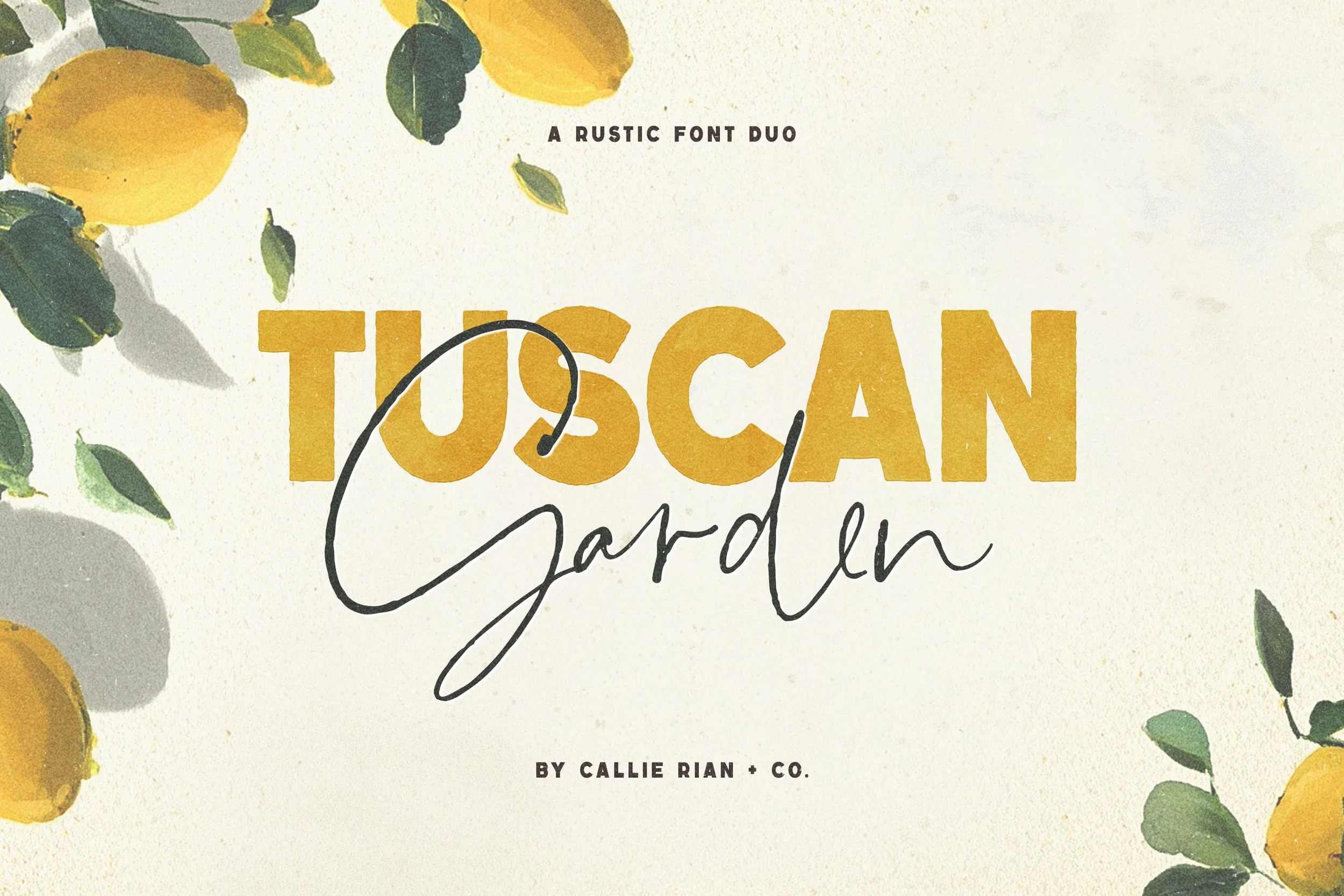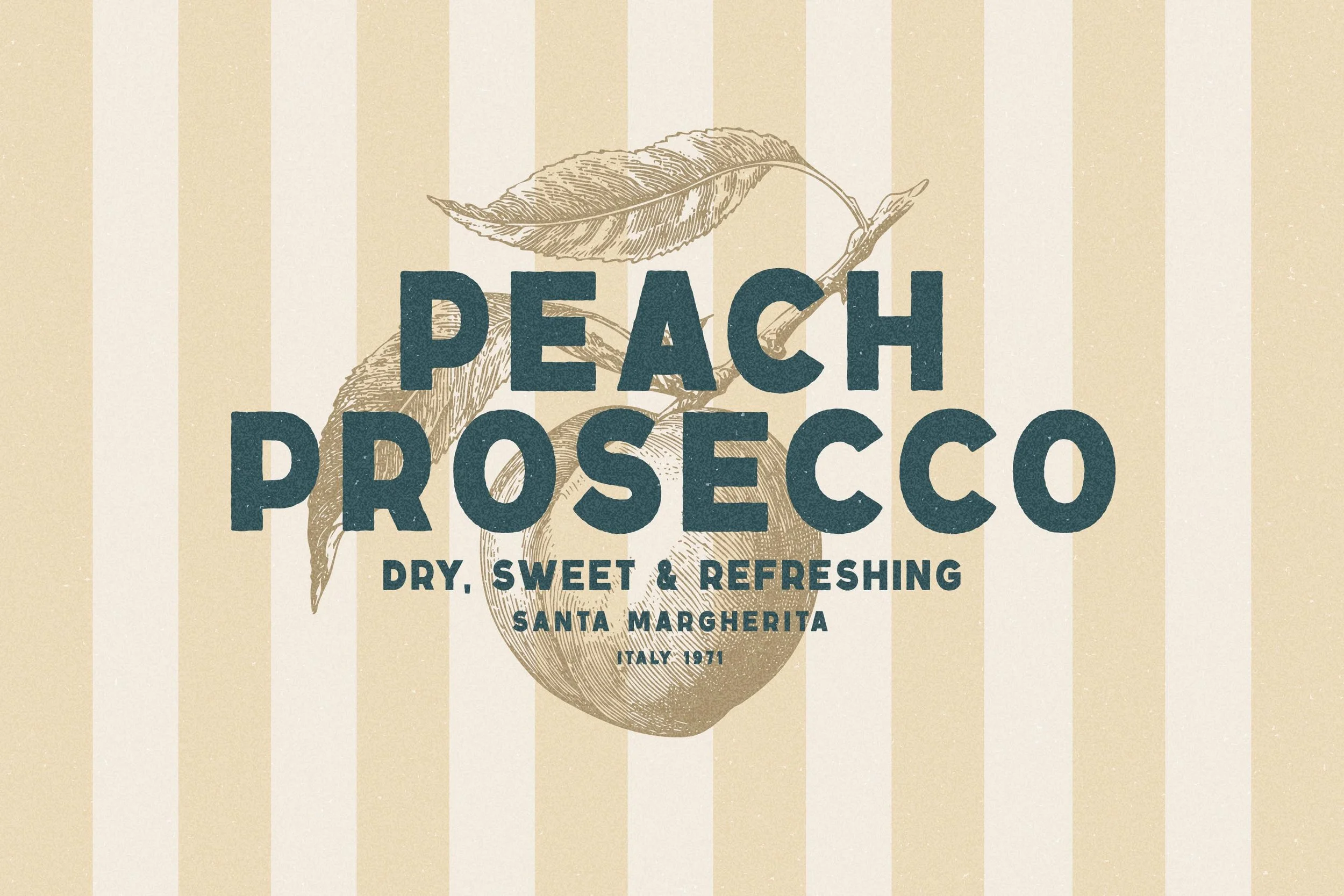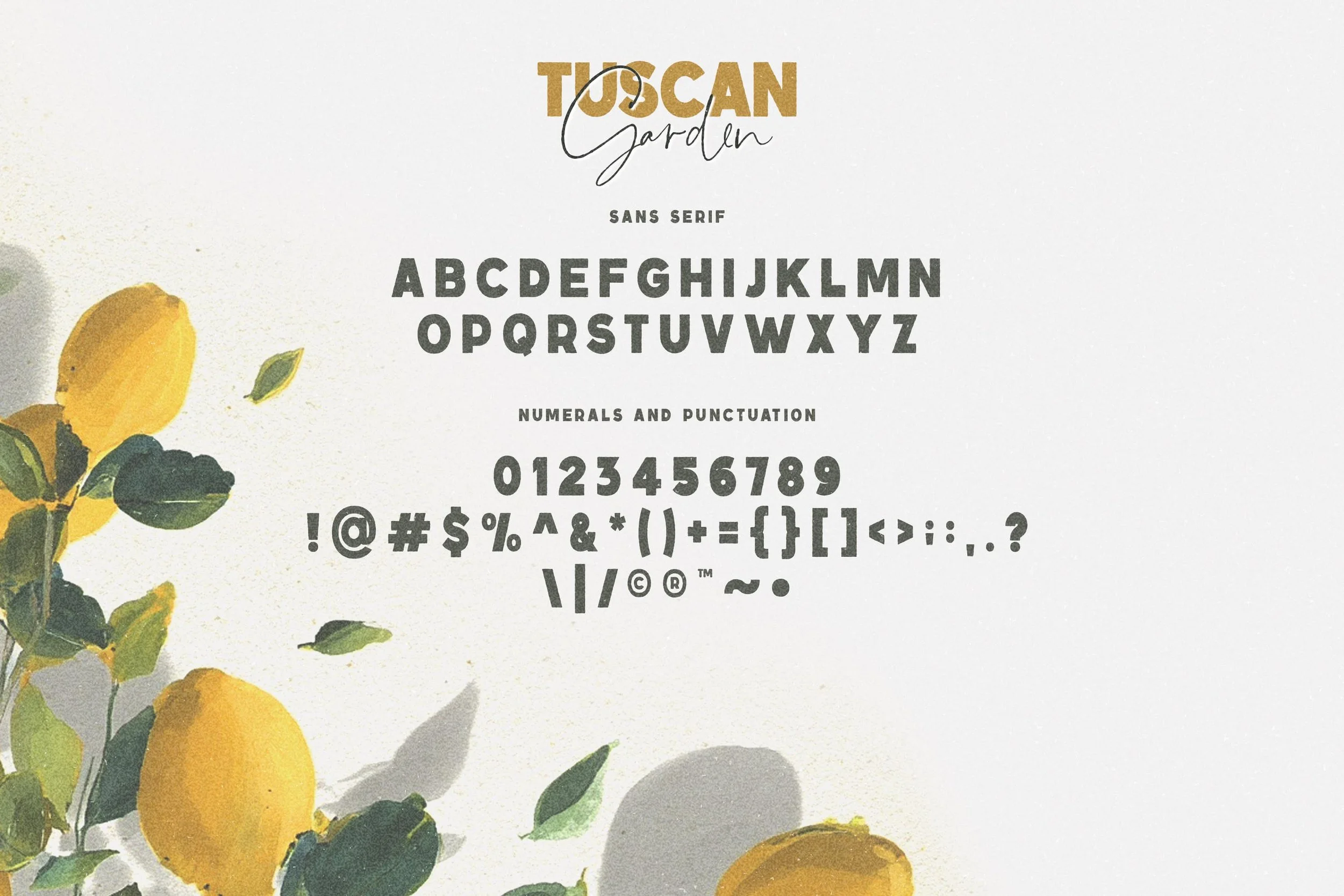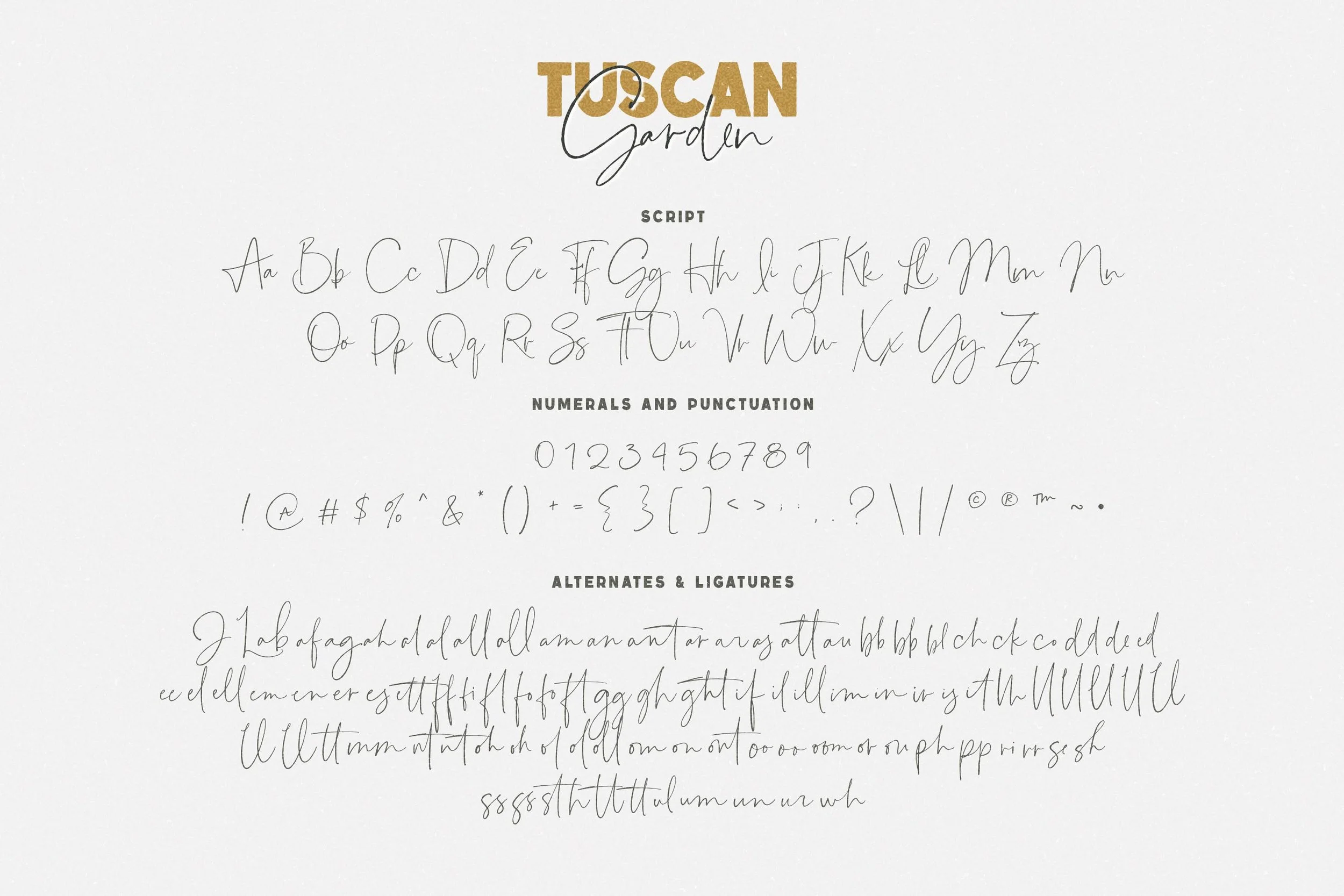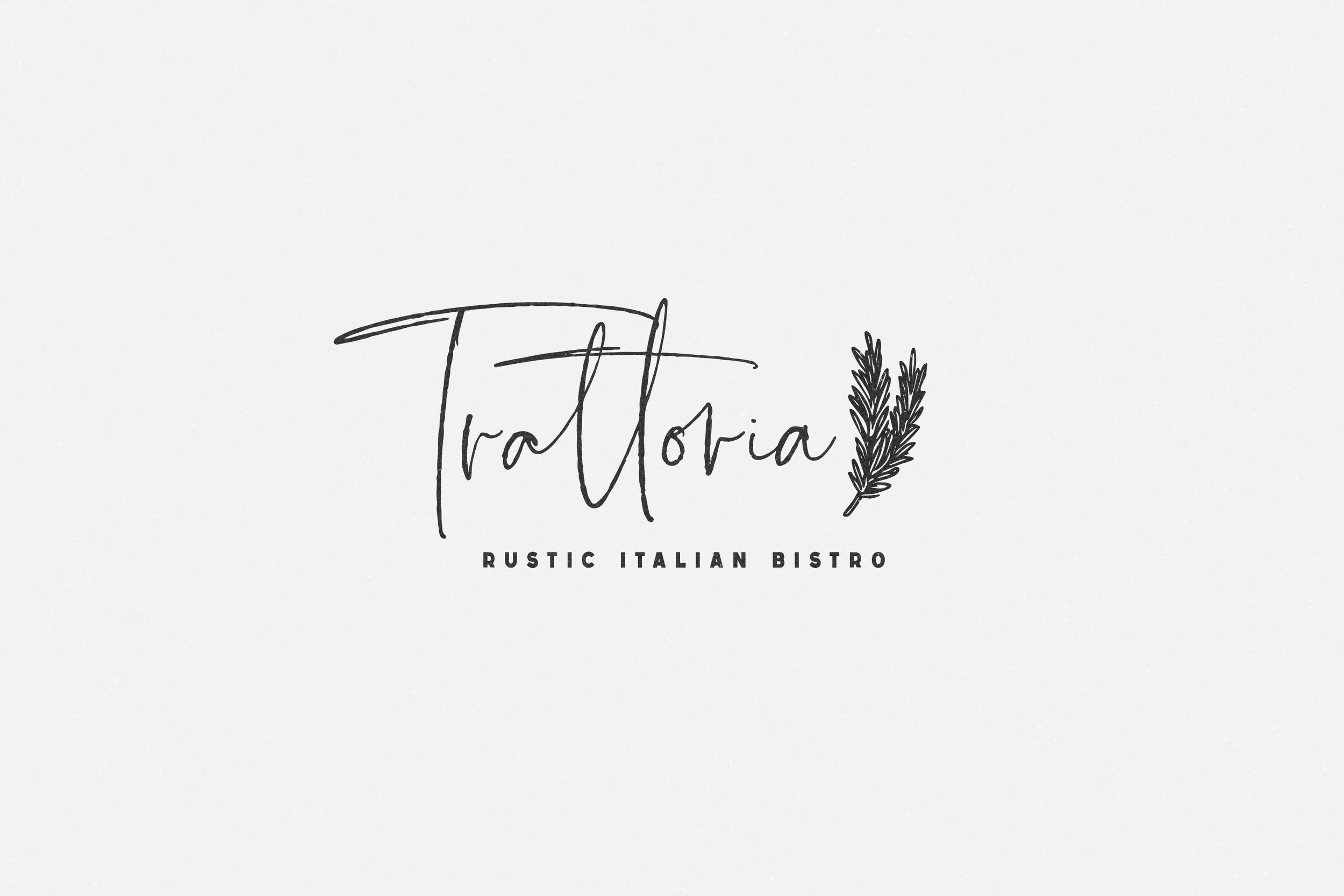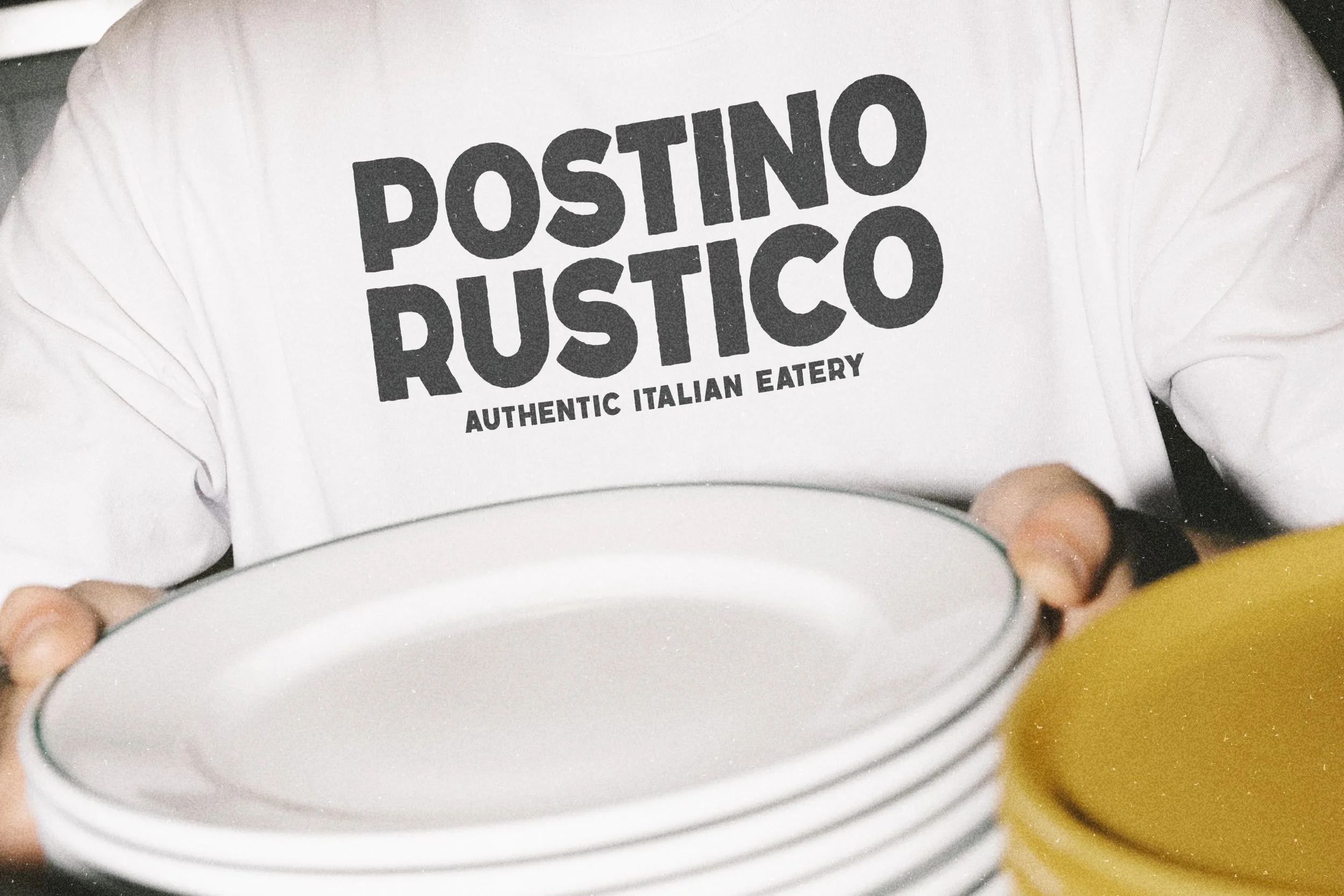
Introducing Tuscan Garden Script and Sans!
This darling handmade duo includes a gorgeous, delicate script with boatloads of alternates, and a textured sans serif (+ clean version) to complement your new script! Use on everything from bridal invitations to apparel to branding!
Bonus ligatures and alternates
Please Note these fonts are handwritten & vectorized, so the edges are purposely irregular. They are best used on print/web, rather than Cricut or Silhouette.